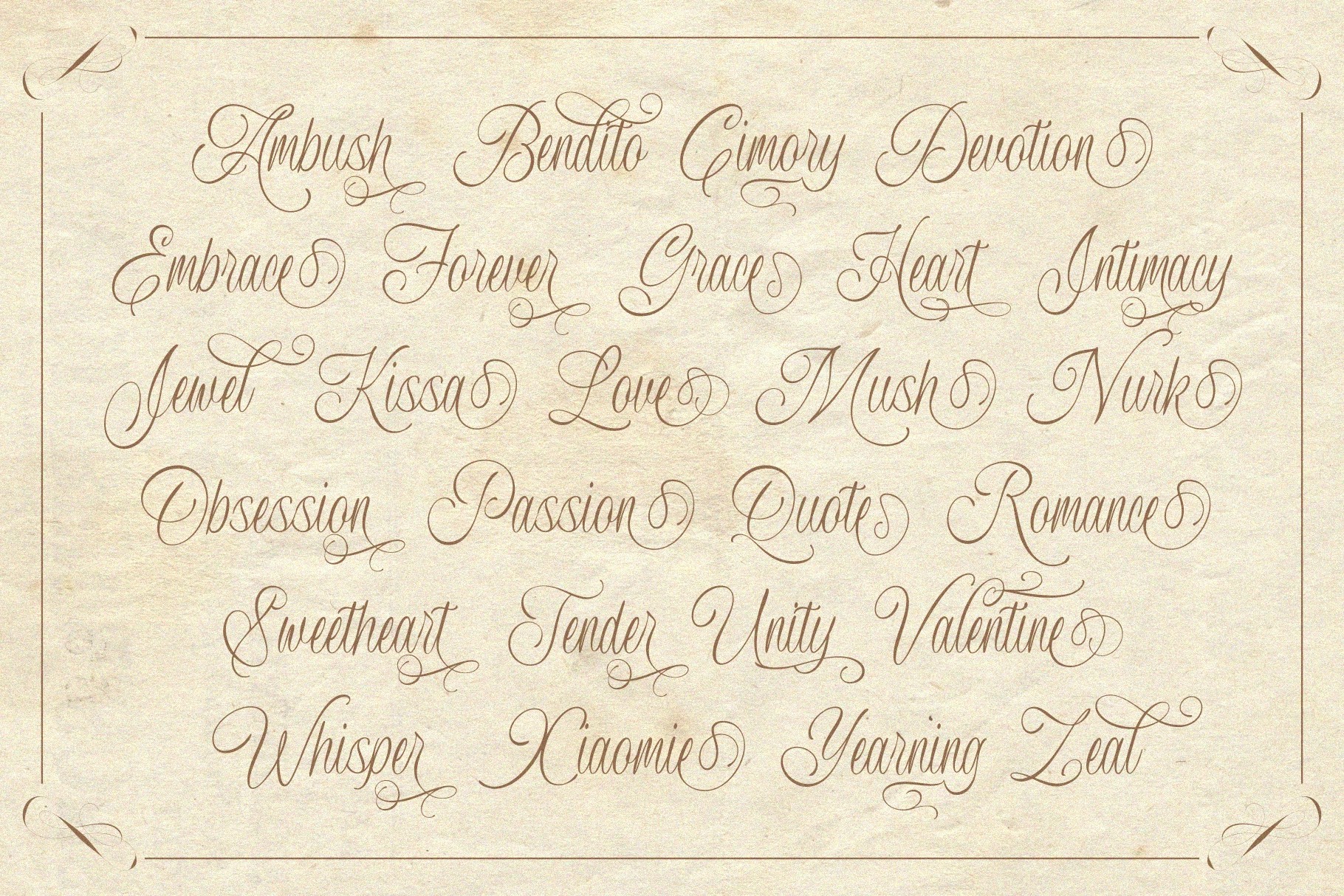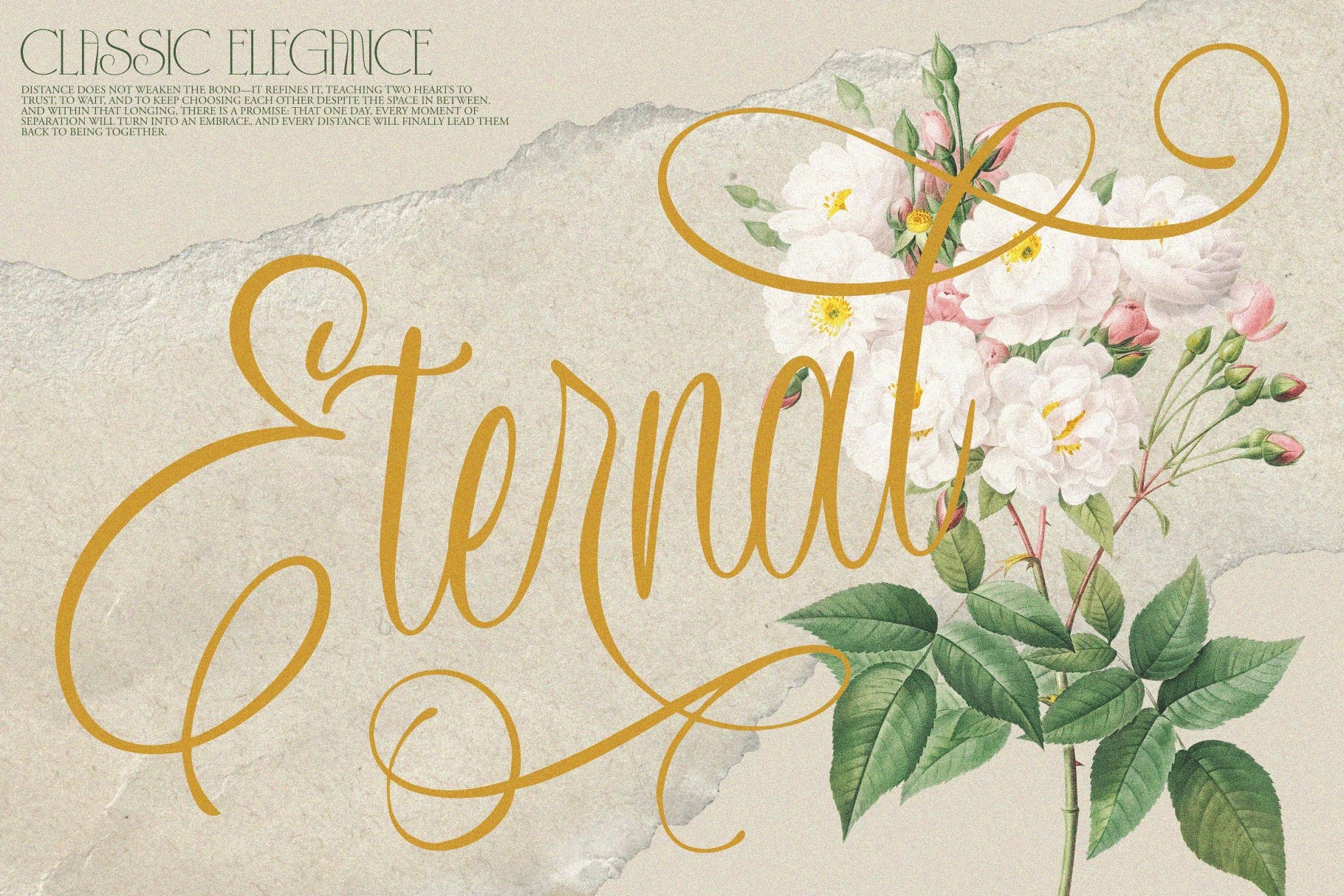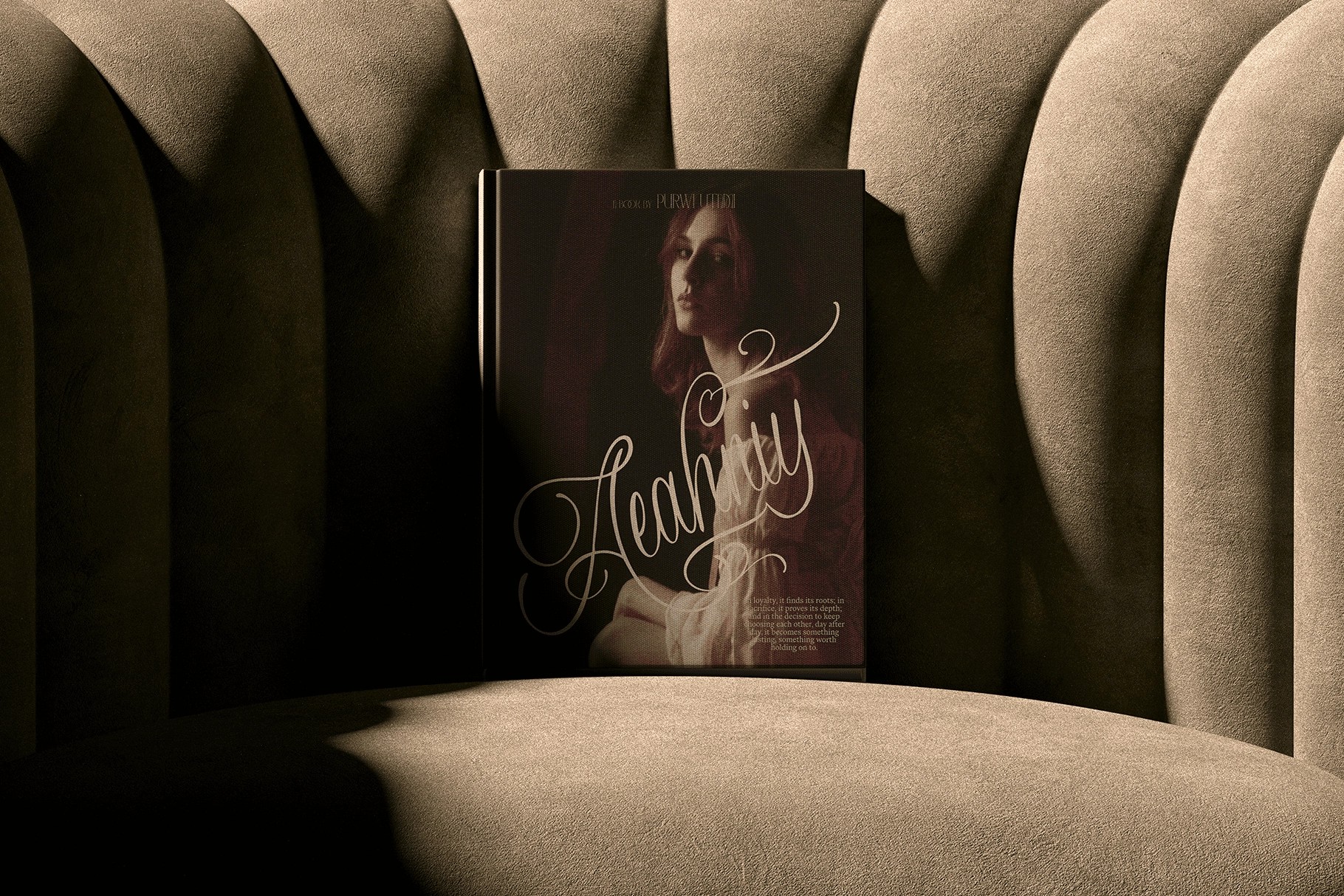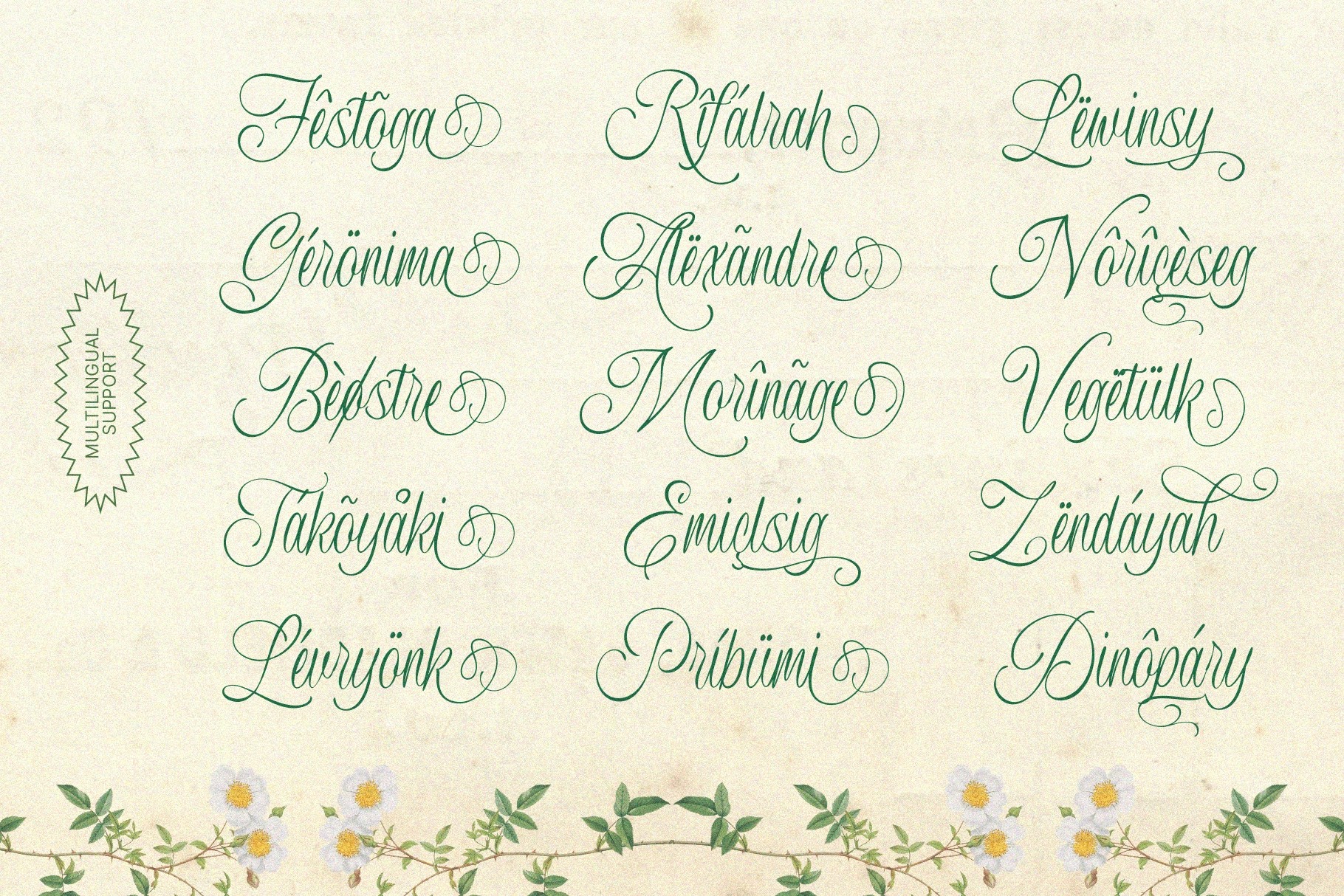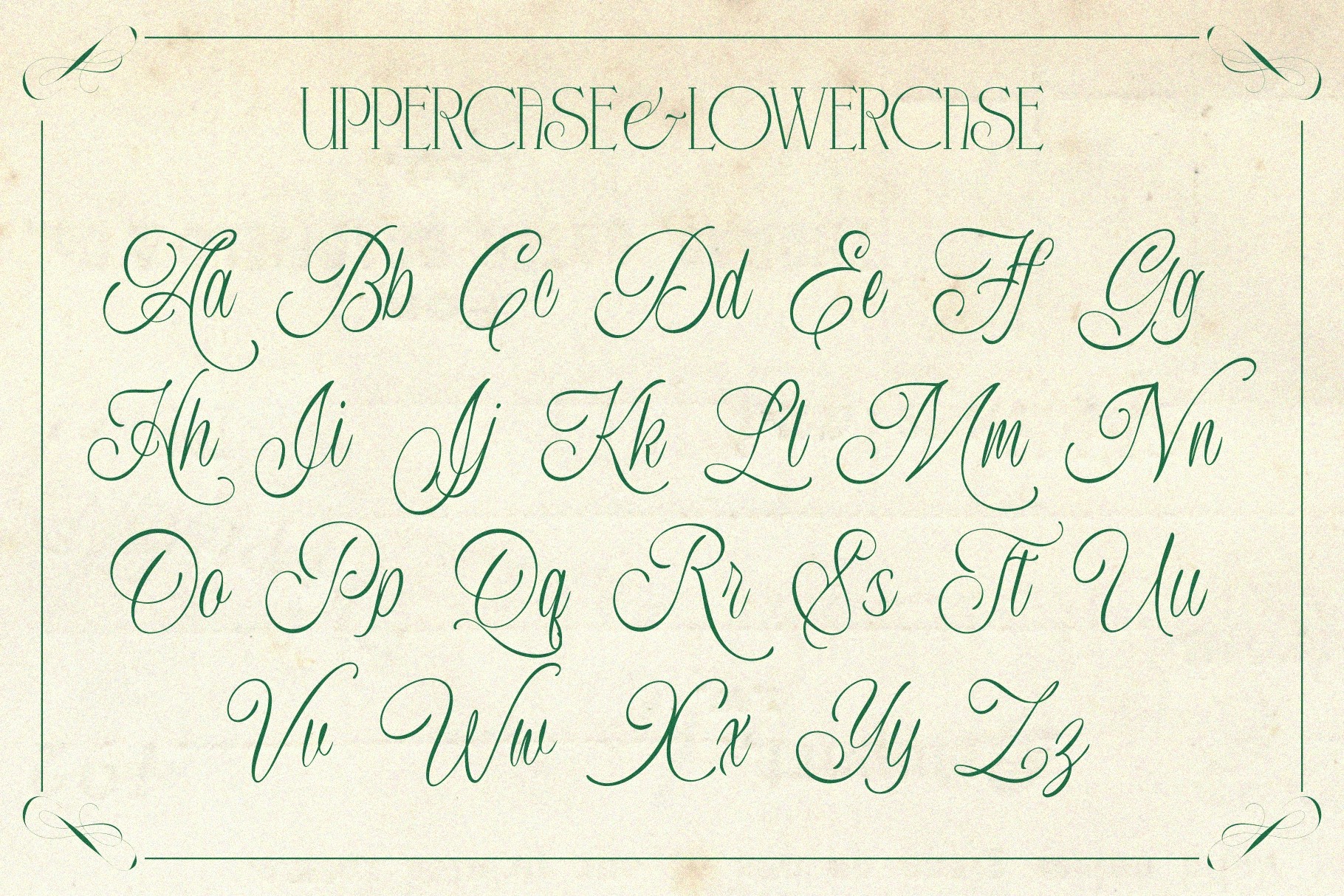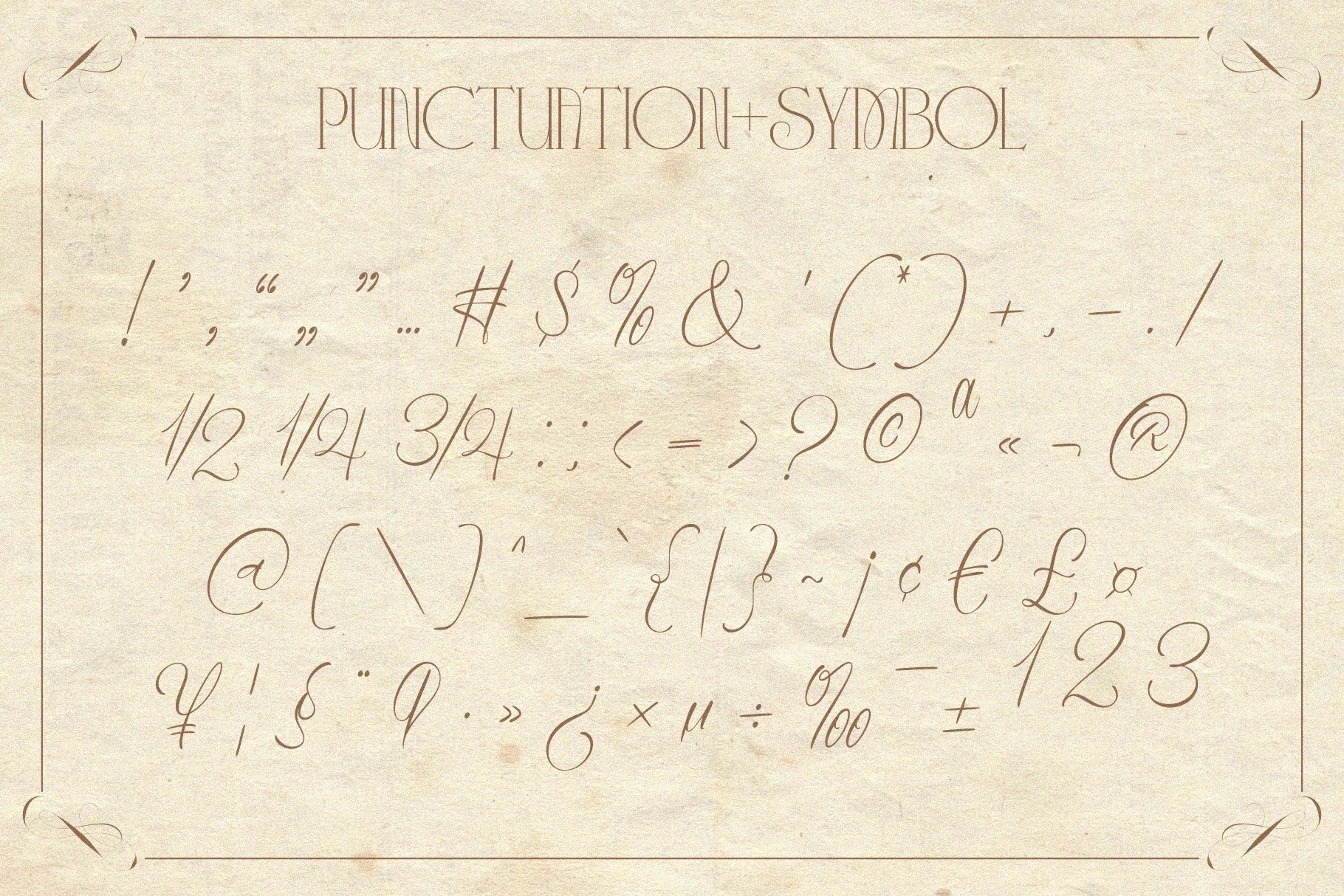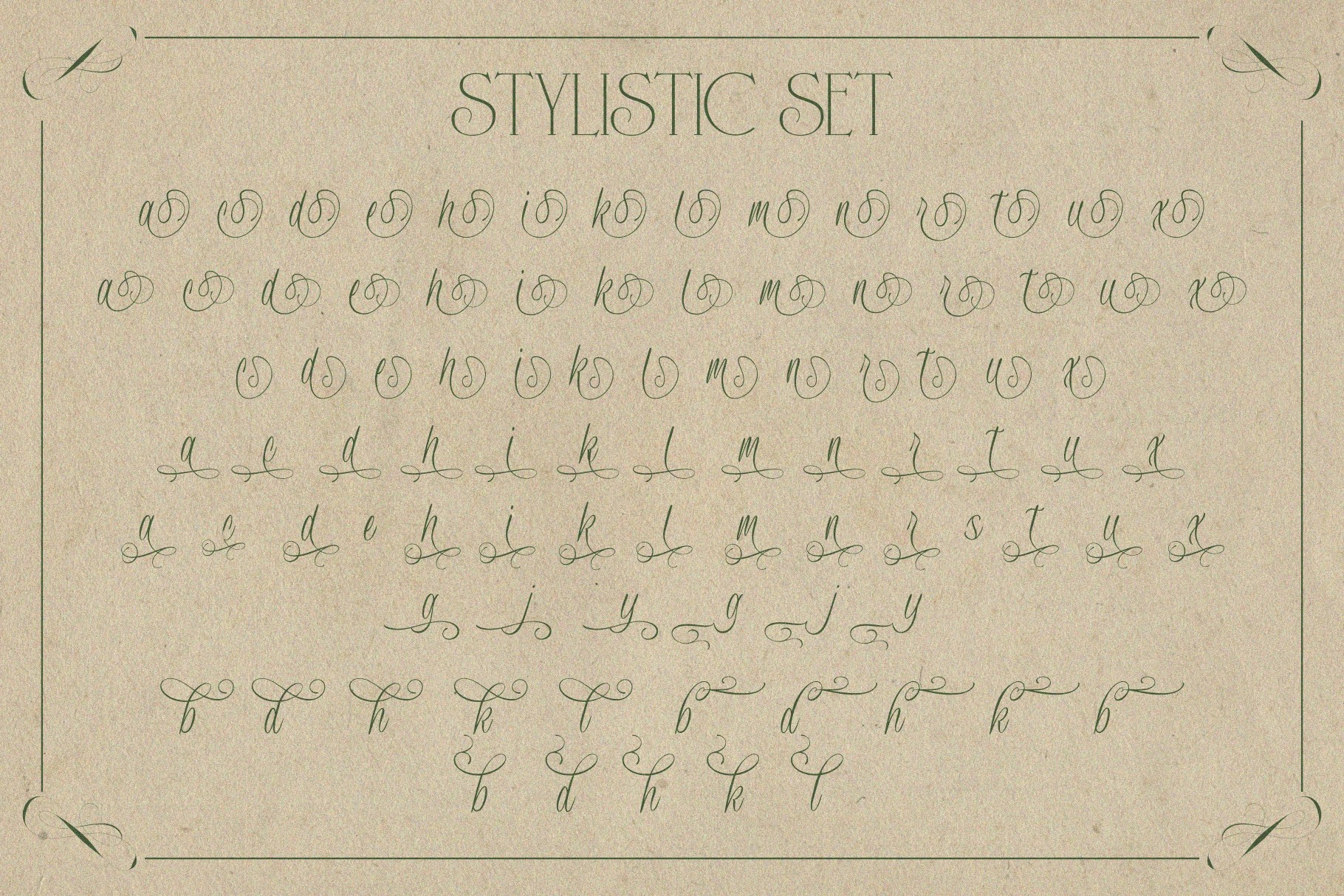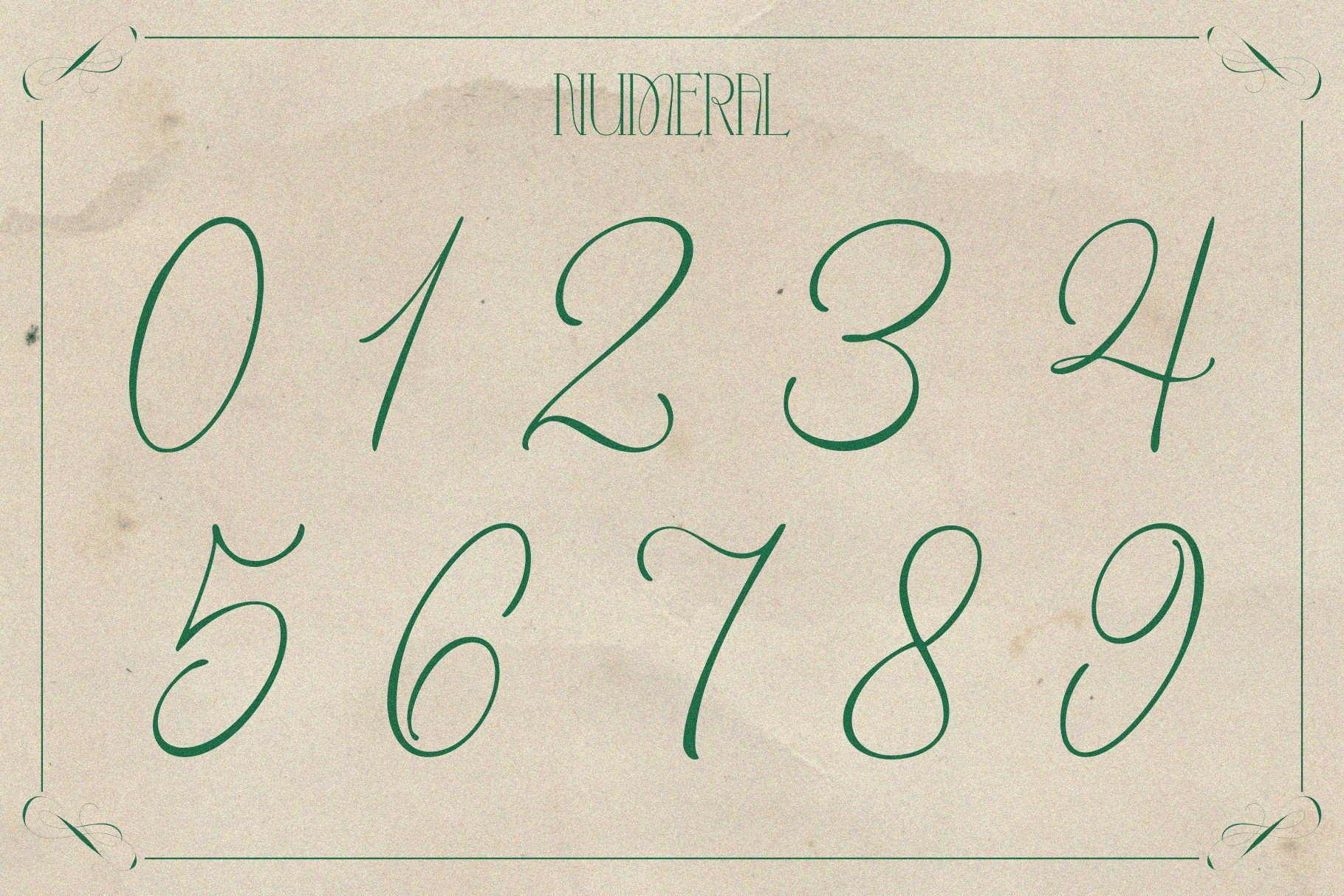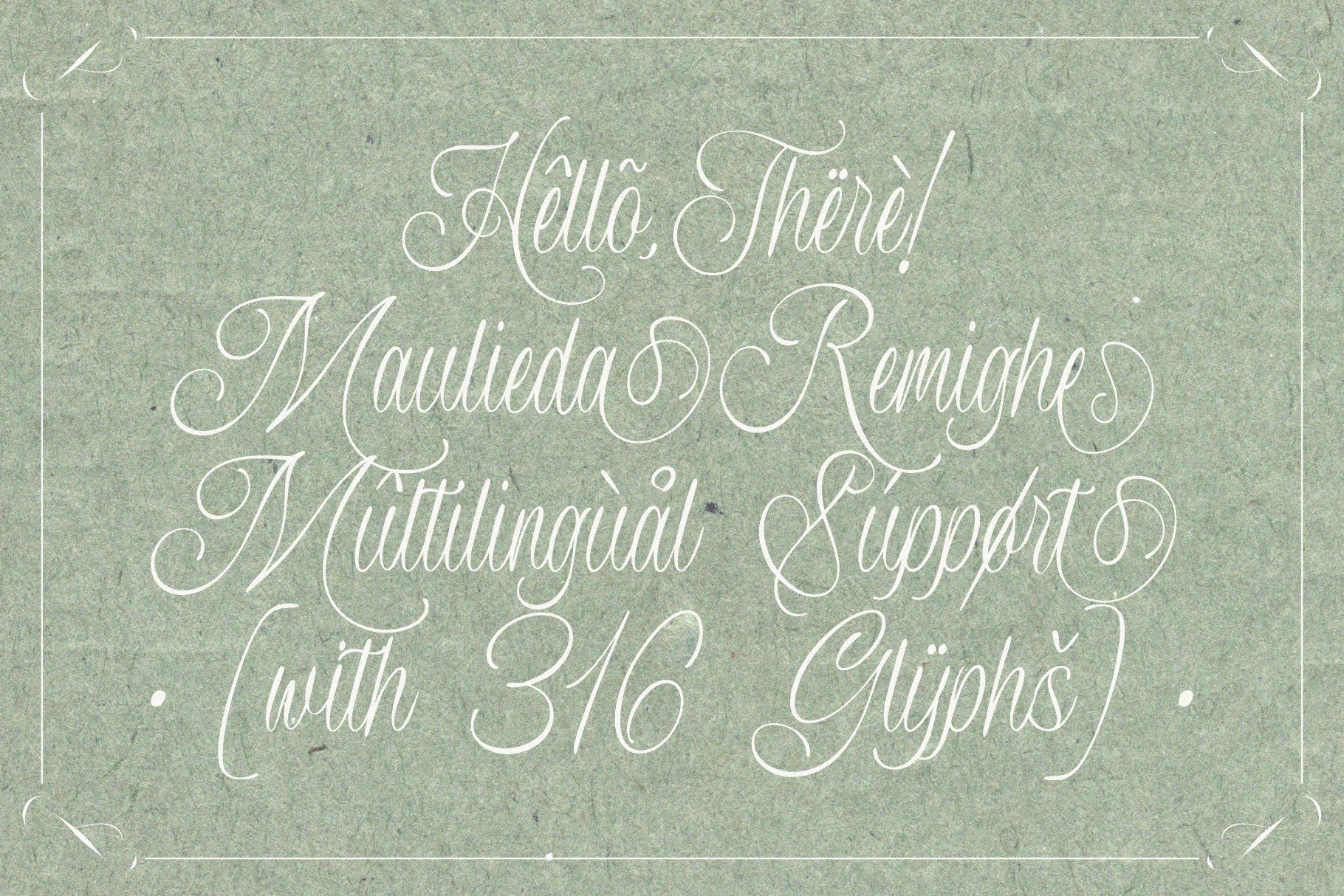
MAULIEDA REMIGHE — Elegant Wedding Script Font
Maulieda Remighe pours old-world copperplate flourish into a contemporary connecting script, its capitals swinging into long entrance strokes and closing loops before the lowercase even begins. Ten stylistic sets and a dedicated swash layer let almost every letter trade its default form for a looser, more theatrical one, keeping a luxury script font like this from repeating itself across a single word.
Use it for wedding invitations and stationery, bridal branding, perfume and jewelry logos, glamour editorial spreads, and monogram-style signature marks — the connecting baseline holds its rhythm at both display sizes and short pull-quote settings.
• 10 stylistic sets, swash alternates, and contextual letter variants;
• uppercase & lowercase;
• numerals, fractions, ordinals, punctuation, currency & symbol set;
• 316 glyphs total